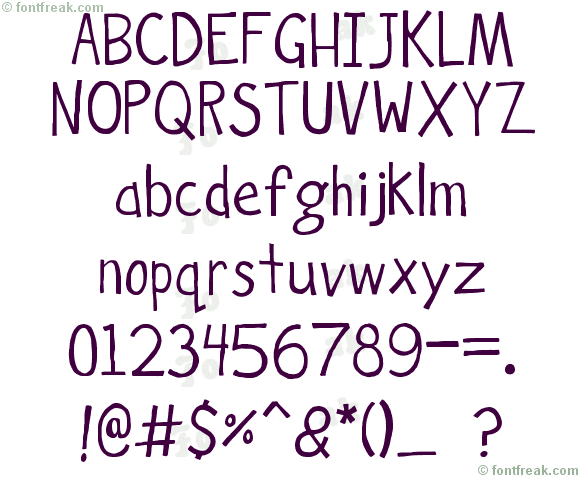
Hockey is Lif
The Hockey is Lif font by Divide By Zero is a playful and distinctive display typeface that perfectly captures the spirit of hockey culture. This freeware font showcases a unique handwritten style, characterized by its slightly irregular strokes that evoke a sense of authenticity and enthusiasm. The strokes have a moderate weight, providing visibility and impact without overwhelming the viewer. The spacing is thoughtfully designed to ensure readability, making it suitable for various applications while maintaining its charm.
Best suited for designs that celebrate hockey, this font excels in sports event posters, team merchandise, and promotional materials for hockey-themed gatherings. Additionally, it can add flair to social media graphics, fan club newsletters, and even local sports bar menus, where a lively and engaging atmosphere is desired. The target audience for the Hockey is Lif font includes graphic designers looking to create dynamic sports-related projects, small business owners in the sporting goods industry, and content creators who want to connect with hockey fans through vibrant visuals.
What sets the Hockey is Lif font apart is its ability to convey a sense of camaraderie and enthusiasm for the sport. It embodies the passion and excitement of hockey, making it a perfect choice for anyone aiming to evoke such feelings in their designs. Whether you're designing a flyer for a local ice rink, crafting a t-shirt for a fan, or enhancing a website dedicated to hockey news, the Hockey is Lif font free download offers a unique option that stands out in a crowded marketplace. Embrace the spirit of the game with this exceptional typeface that celebrates hockey in every stroke.